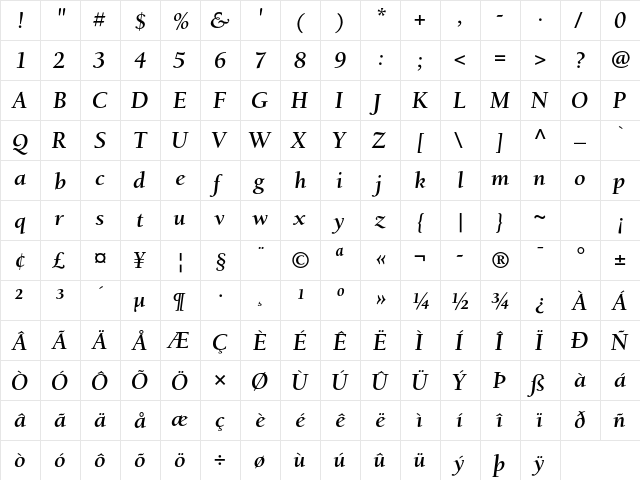
ITC Berkeley Oldstyle Std Bold Italic Font Preview
| Designer | Frederic W. Goudy |
Design Context for ITC Berkeley Oldstyle Std Typeface
ITC Berkeley Oldstyle Std carries the refined structure of traditional serif typography, with bracketed terminals and considered proportions that communicate credibility and craft. The slanted form adds forward momentum and visual energy. Its bold stroke weight gives it real presence on the page.
Pro Tip: Use ITC Berkeley Oldstyle Std for editorial body copy and considered headline work. Pair with a neutral sans for UI elements or captions to create a classic hierarchy.